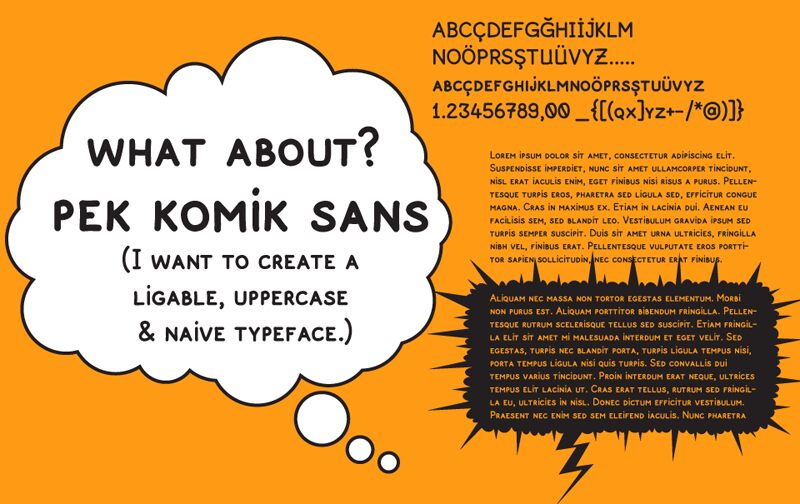
Pek Komik Sans
Pek Komik Sans, designed by Ozgur Serdar Altunoglu, is a display font that brings a playful and approachable feel to any project. With its comic style and semi-expanded width, this font exudes a casual charm that captures the whimsical essence of hand-drawn storytelling. Its rounded edges and varying line weights create a dynamic visual rhythm, making it perfect for engaging audiences in informal contexts.
The aesthetic appeal of Pek Komik Sans lies in its ability to balance legibility with personality. This makes it an excellent choice for creative projects ranging from children's literature to comic book art and lighthearted branding materials. Its friendly appearance invites readers into a world where design doesn't take itself too seriously but still maintains a professional edge.
Whether you're crafting eye-catching headlines, designing quirky packaging, or setting the scene in interactive media, Pek Komik Sans has the versatility to elevate your work with its distinctive flair. Embrace the playful sophistication of Pek Komik Sans and let your designs tell a story with heart and humor.
This typeface started with trying an new software. When I woke up, the font set had already finished.